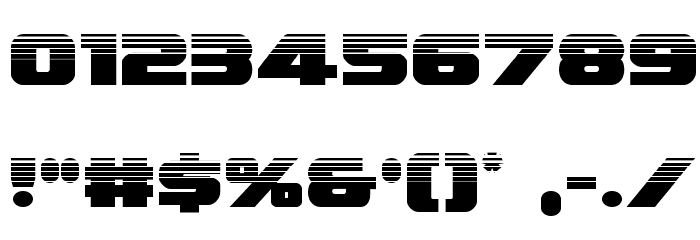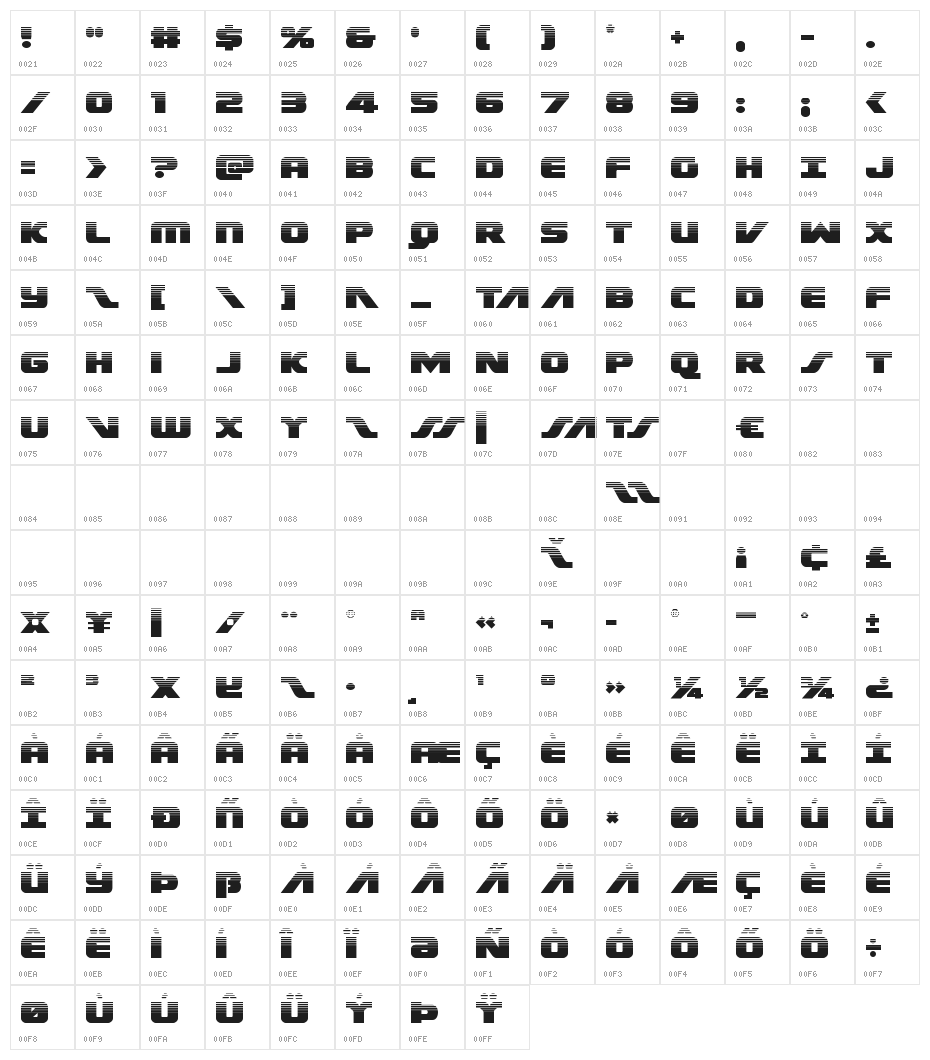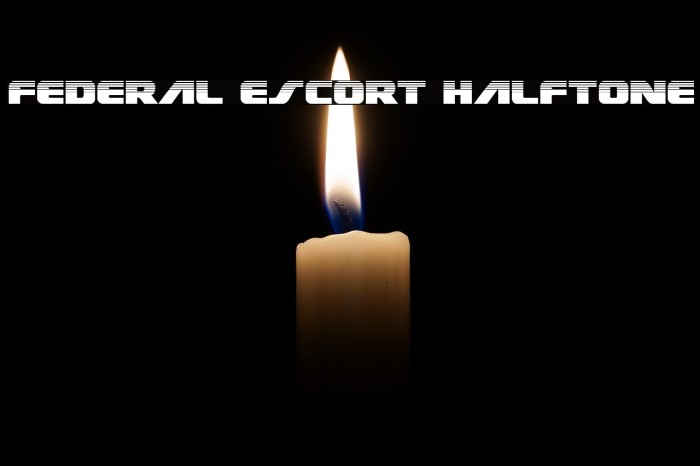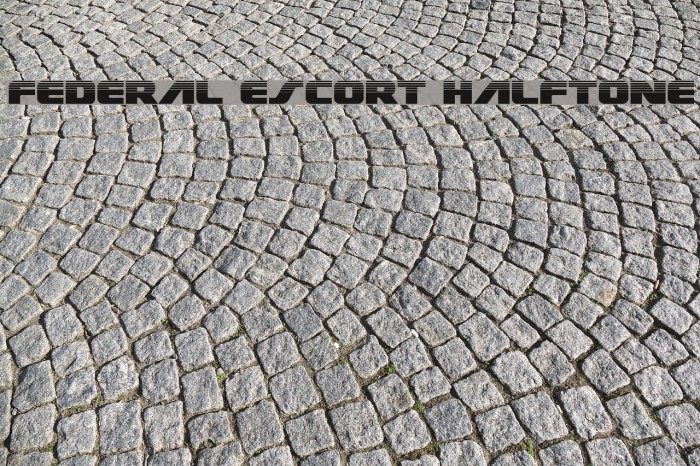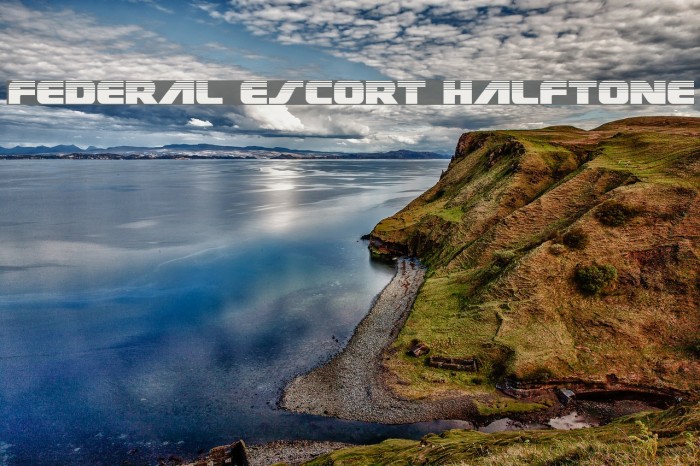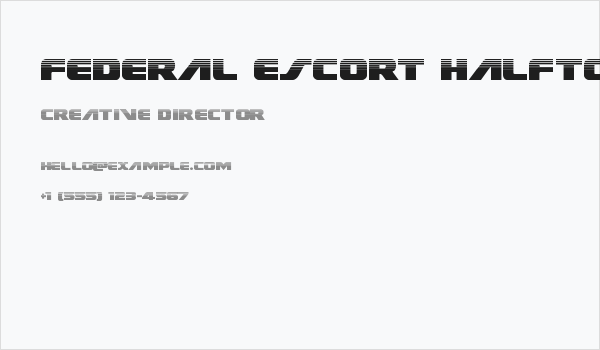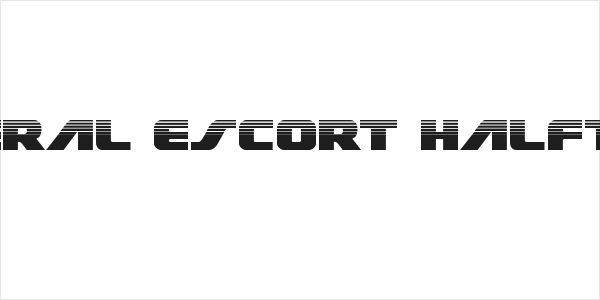
Federal Escort Halftone Font
Federal Escort Halftone Description
This font features a bold, futuristic design with a distinct halftone effect. The characters are constructed with solid, geometric shapes and horizontal lines that create a sense of movement and modernity. The uppercase and lowercase letters maintain a consistent style, with sharp angles and a blocky appearance. The numbers and special characters follow the same design principles, ensuring uniformity across the set. The halftone effect adds a unique texture, making the font stand out in digital and print media.